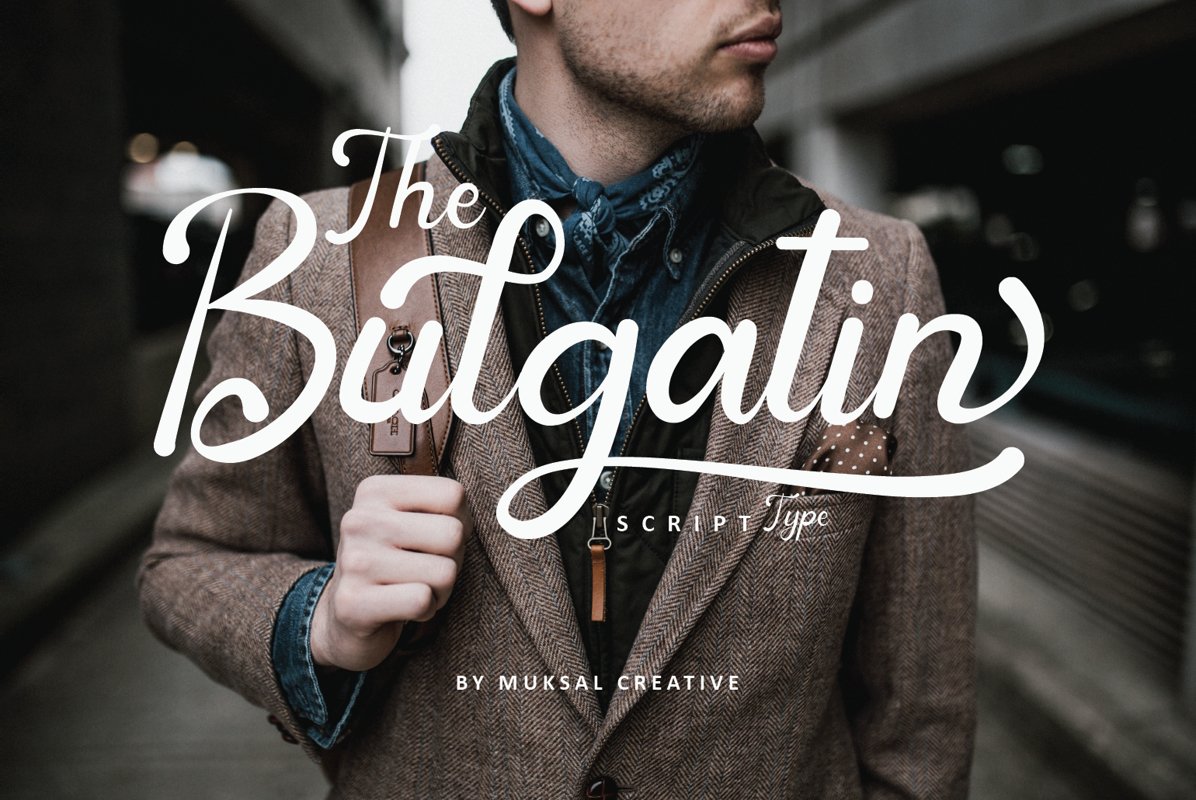
Bulgatin
Introducing by Bulgatin Script, a new
fresh & modern script typeface. a charming typeface and So beautiful
on invitation like greeting cards, branding materials, business cards,
quotes, posters, and more!
include Features:
• Font Weight: Regular,
• Extras: Uppercase Multilingual Letters, Lowercase Multilingual Letters, Numbers & Punctuation, ligature + Alternatives.